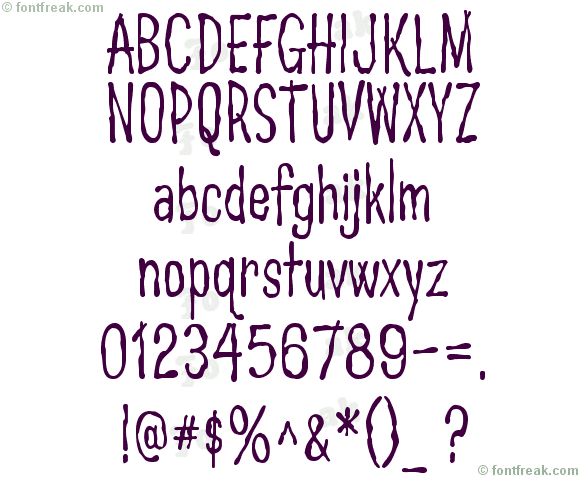
Big Ruckus AOE
About Big Ruckus
Big Ruckus is a captivating display font created by Astigmatic One Eye, renowned for its distinctive character and playful energy. This font falls into the decorative category, making it perfect for projects that demand attention. The visual characteristics of Big Ruckus are striking, with a bold stroke weight that captivates the eye, and a unique, uneven baseline that adds an element of whimsy. The letterforms feature a mix of rounded and sharp edges, creating a dynamic contrast that enhances its playful nature. The generous spacing between characters ensures clarity while maintaining a sense of fun, making it an ideal choice for various creative applications.
This versatile font excels in several specific use cases. It is particularly well-suited for eye-catching movie posters where it can embody the excitement of the film's theme. Additionally, Big Ruckus can breathe life into vibrant restaurant menus, attracting diners with its bold personality. It also makes a delightful choice for children's book covers, capturing the imagination of young readers. Graphic designers can utilize this font for creating engaging social media graphics or promotional materials that need to stand out in a crowded marketplace. Small business owners looking to enhance their branding will find Big Ruckus a valuable addition to their design toolkit.
The target audience for this font includes graphic designers, small business owners, and content creators who are eager to make a memorable impression. Big Ruckus font free download allows users to incorporate this unique typeface into their projects without the burden of licensing fees. Its distinctive style and bold presence set it apart from conventional fonts, making it an excellent choice for anyone looking to infuse their designs with a sense of fun and creativity. Embrace the vibrant energy of Big Ruckus and let your projects shine.